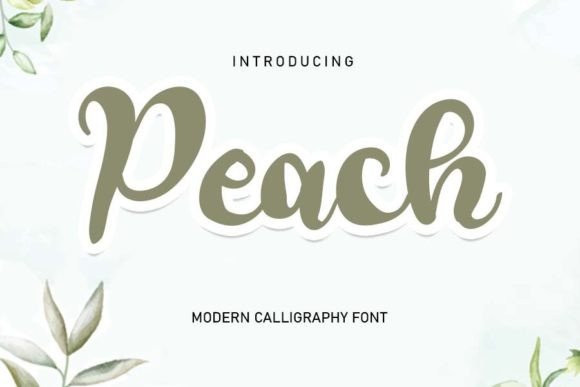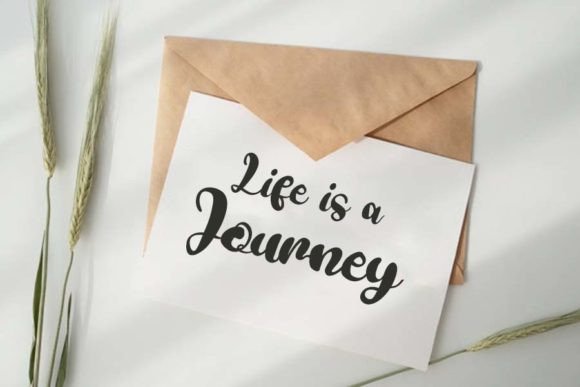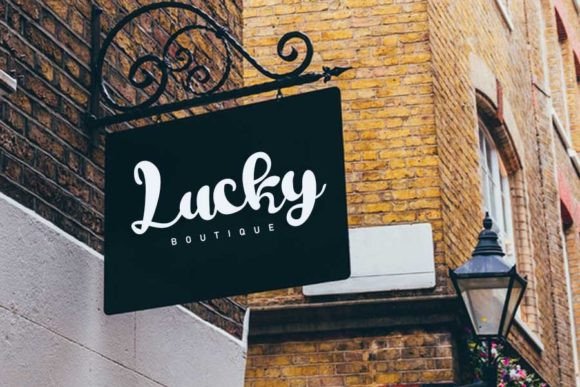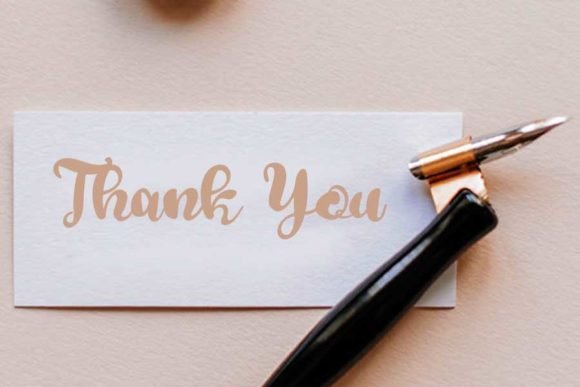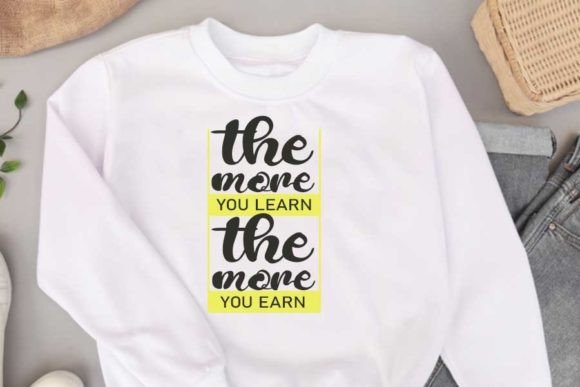
About Peach Font
Introducing Peach, an incredibly unique handwritten font masterfully designed to become a true favorite. With its distinctive charm, this font has the potential to elevate each of your creative ideas to the highest level.
Peach stands out with its one-of-a-kind handwritten style, adding a touch of individuality and character to your designs. Crafted with care and attention to detail, this font is destined to become a favorite among those seeking something truly special.
Whether you’re working on branding, logos, invitations, posters, or any creative project, Peach is designed to make a lasting impression. Its uniqueness sets it apart, adding a level of creativity and personality that can transform ordinary designs into extraordinary ones.
For branding and logos, Peach brings a fresh and distinctive look. Its handwritten charm adds a touch of authenticity, creating a memorable visual identity that resonates with your audience.
In invitations and posters, Peach contributes to a lively and engaging aesthetic. The font’s uniqueness enhances the overall design, making your invitations and promotional materials stand out with a touch of creativity.
Peach is not just a font; it’s a creative tool that has the potential to breathe life into your designs. Its versatility allows it to adapt to various design contexts, making it suitable for a wide range of applications.
In conclusion, Peach is a font that stands out with its incredible uniqueness and handwritten charm. If you’re looking to bring your creative ideas to the highest level, Peach is ready to become an essential part of your toolkit. Choose Peach for designs that demand a touch of individuality and creativity.